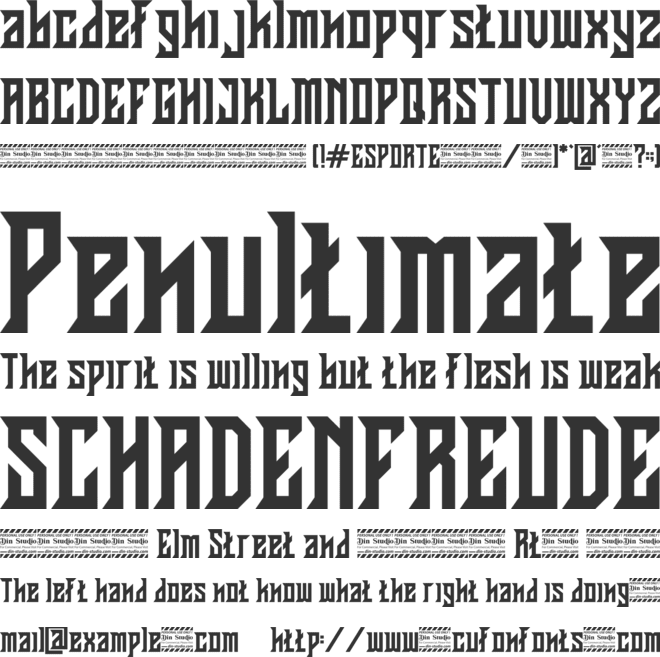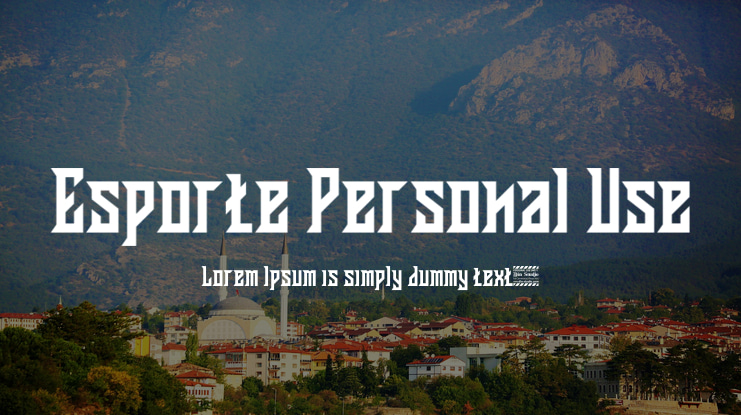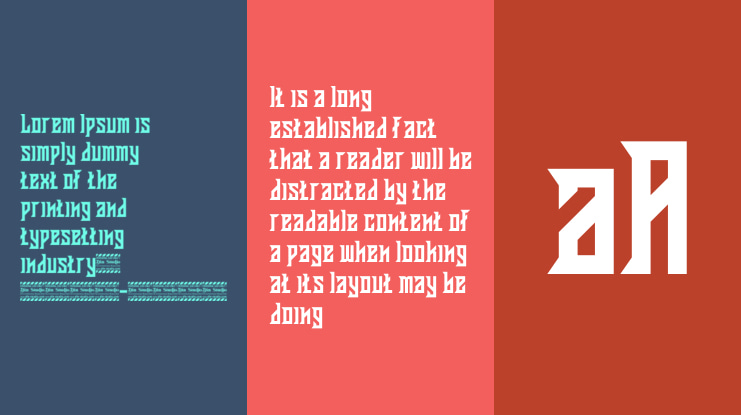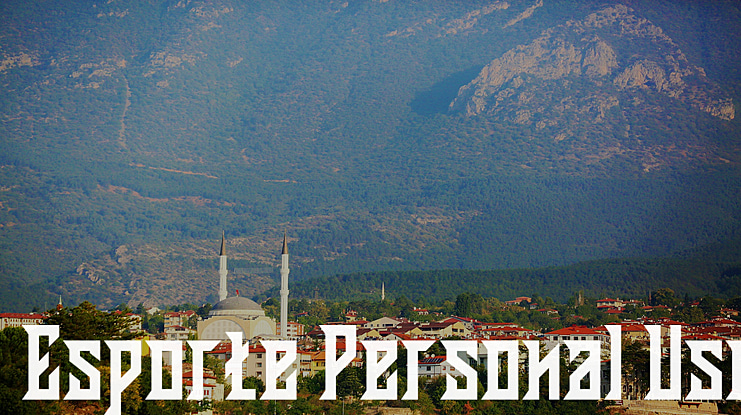
Esporte is a classic sport font. Made for any professional project especially that related to the sports. Beside that, this font can be used for printing, branding and quotes.